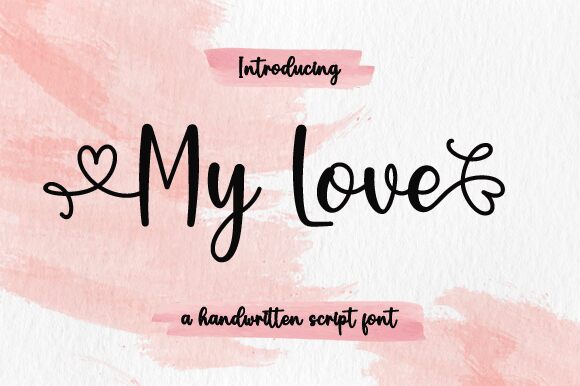
My Love by Nirmala Creative embodies the tenderness and warmth of handwritten notes, perfect for projects that require a personal touch. This semi-light Valentine-style font exudes charm with its fluid, graceful strokes, capturing the essence of affectionate correspondence. The casual elegance of My Love makes it an excellent choice for invitations, greeting cards, and branding endeavors that benefit from a dash of romantic flair.
Its aesthetic appeal lies in the casual yet sophisticated vibe it brings to the table, making it versatile for both digital and print mediums. Whether you're crafting heartfelt wedding stationery or designing a logo that needs to convey intimacy and care, My Love offers a delightful blend of style and legibility that will surely make your creations stand out.